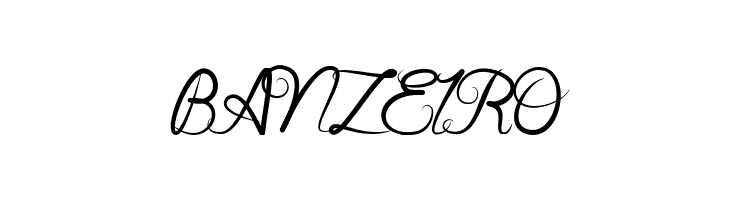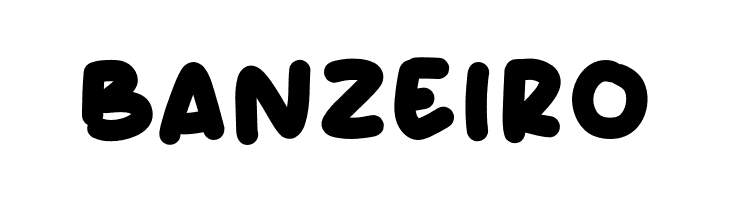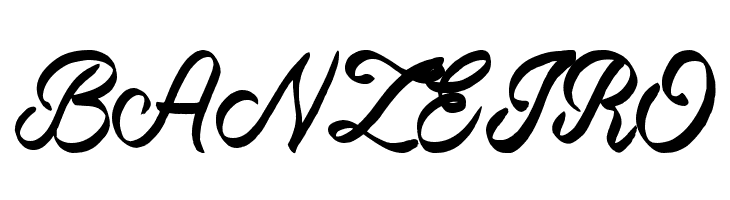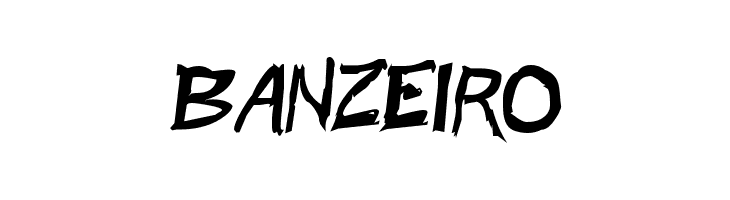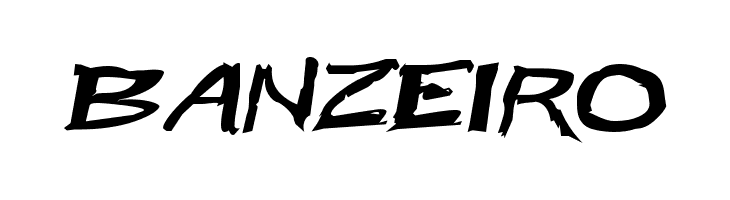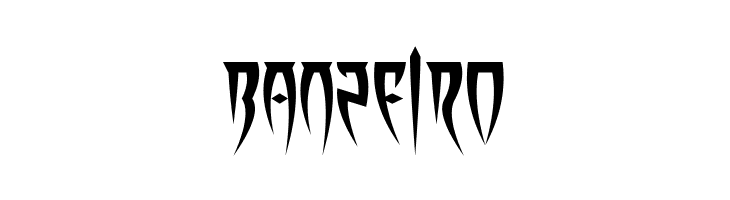
A bold, playful font with a bear paw print in the 'A', perfect for fun and nature-themed designs.
A playful, bold font with rounded, thick strokes and a whimsical style.
An elegant script font with flowing, ornate cursive letters and high contrast strokes.
A bold, flowing script font with elegant curves and dynamic presence.
A bold, aggressive font with sharp, angular lines and pointed edges.
A bold, edgy font with sharp angles and a dynamic, rugged appearance.
A bold, jagged font with a dynamic and aggressive style.
A dynamic, angular font with sharp strokes and a sense of motion.
A bold, angular font with a futuristic and industrial feel.
A bold and expressive script font with dynamic, flowing letterforms.
A decorative font of playful symbols and animal silhouettes.
A bold, expressive brush script with a dynamic, hand-painted style.
A bold, expressive brush script font with dynamic strokes and a hand-painted look.
A bold, futuristic font with geometric shapes and smooth curves.
A bold, italic, and angular font with a futuristic style.
A bold, geometric font with diagonal stripes and a modern aesthetic.
A futuristic double-line font with a geometric and modern design.
A bold, futuristic font with geometric, block-like shapes and unique cutouts.
A sleek, geometric font with thin lines and a modern, minimalist aesthetic.
A bold, geometric font with a futuristic and modern design.
A bold, hand-painted style font with dynamic, uneven strokes.
A bold, expressive script font with dynamic, interconnected letters.
A bold, handwritten script font with a modern and expressive style.
A bold, hand-drawn font with an expressive and dynamic style.
A bold, rhythmic font with a tribal-inspired design and thick, rounded strokes.
A display font made from images of retro boomboxes and cassette tapes.
A bold, playful script font with dynamic curves and a whimsical style.
A flowing, cursive font with elegant, interconnected strokes and a handwritten aesthetic.
An elegant, flowing script font with sweeping curves and delicate strokes.
A bold, dynamic script font with flowing, expressive strokes.
A bold and expressive script font with a modern, handwritten style.
A graceful and fluid script font with elegant curves and delicate strokes.
A graceful and elegant cursive script font with fluid connections and artistic flourishes.
An elegant and decorative script font with flowing curves and intricate flourishes.